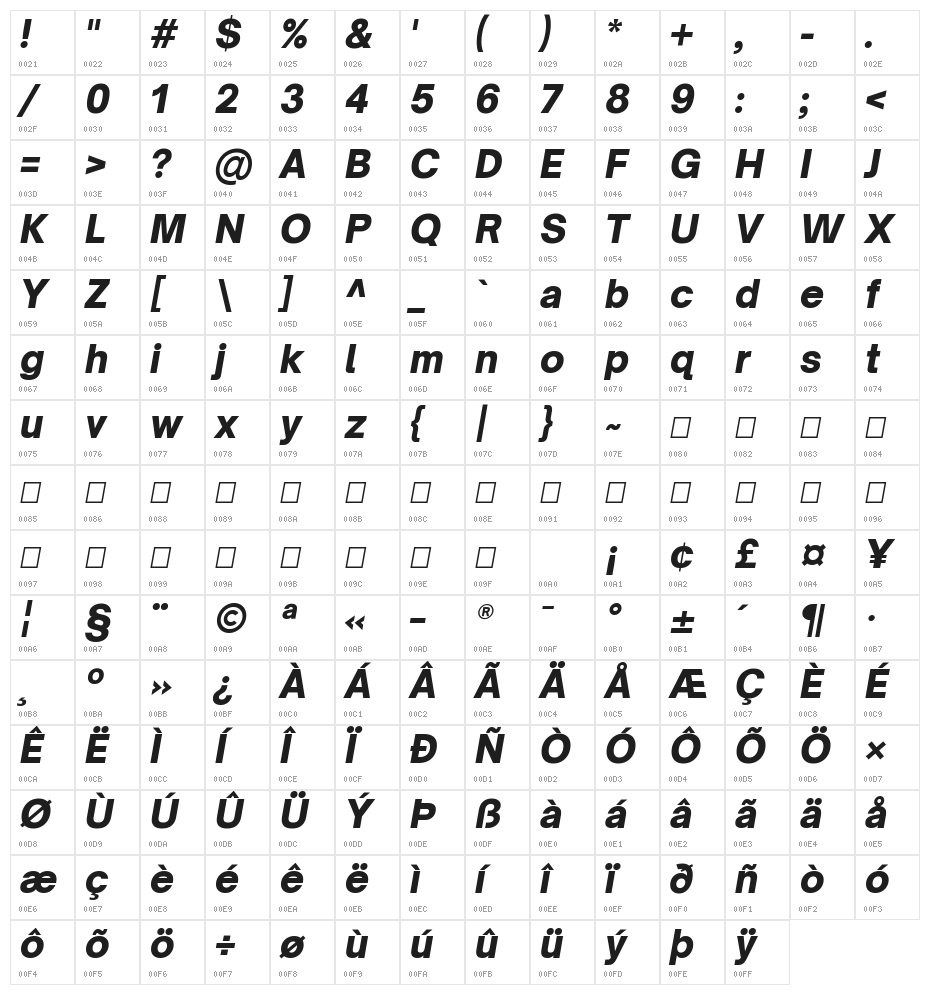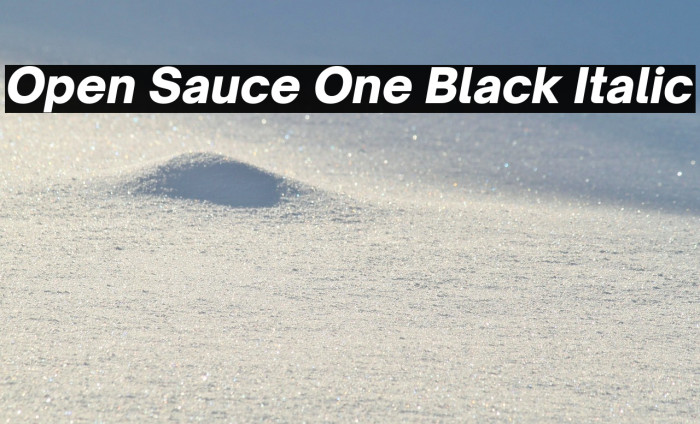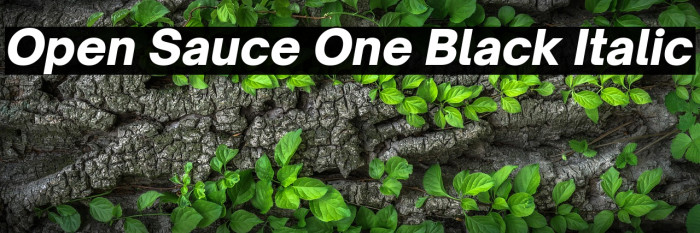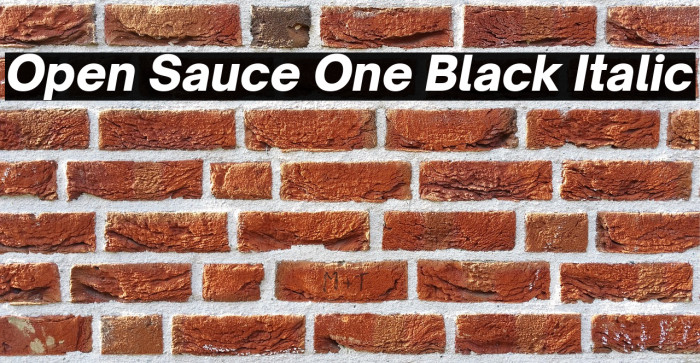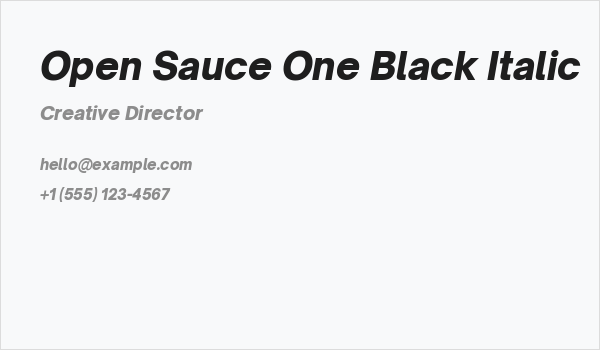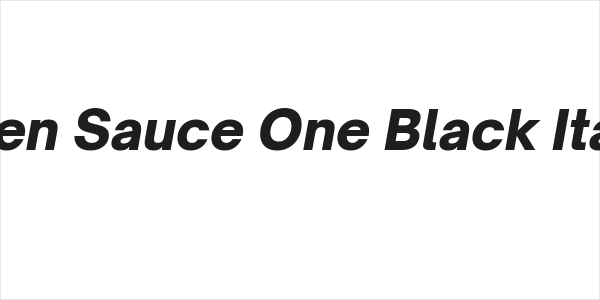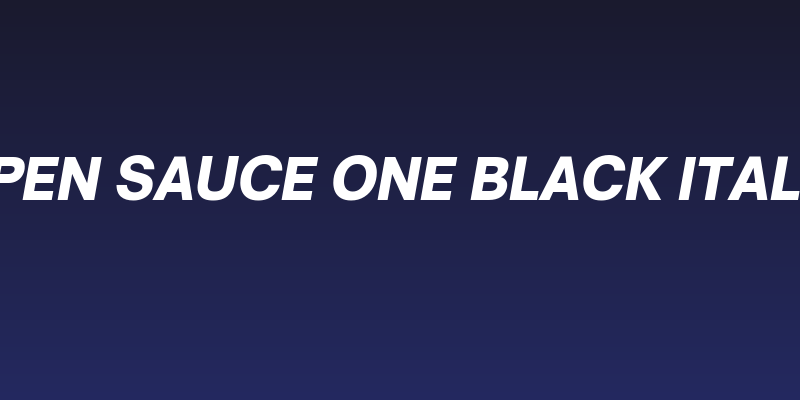
Open Sauce One Black Italic Font
This font exhibits a bold and dynamic presence with its strong, thick strokes and italicized slant. The characters are well-defined, offering a modern and assertive look. The uppercase letters are prominent and commanding, while the lowercase letters maintain a consistent style that complements the overall design. Numbers and special characters are equally bold, ensuring readability and impact. The italic style adds a sense of motion and emphasis, making it suitable for attention-grabbing designs.
| Use Case | Headlines, Logos, Advertising |
| Proposed Projects | Ideal for branding, advertising, headlines, and any design requiring a bold statement. |